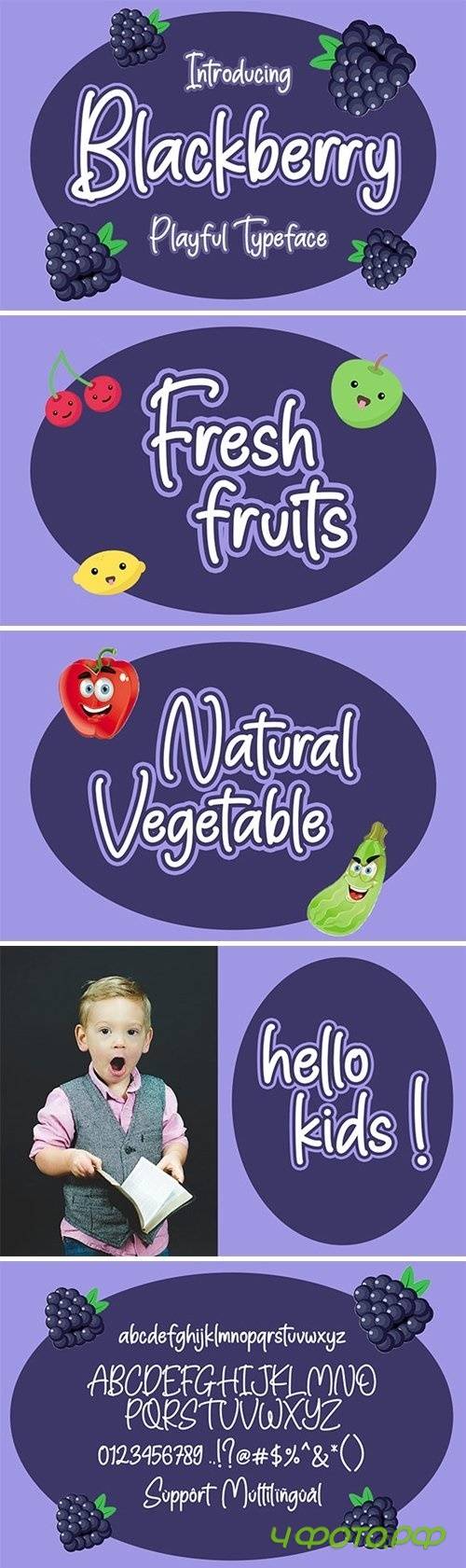
Blackberry Font
Blackberry is a cute and casual handwritten font with an incredibly friendly feel. It features gorgeous swashes and ligatures that make this script incredibly versatile. Whether you’re looking for fonts for Instagram or calligraphy scripts for DIY projects, Blackberry will turn any creative idea into a true piece of art!